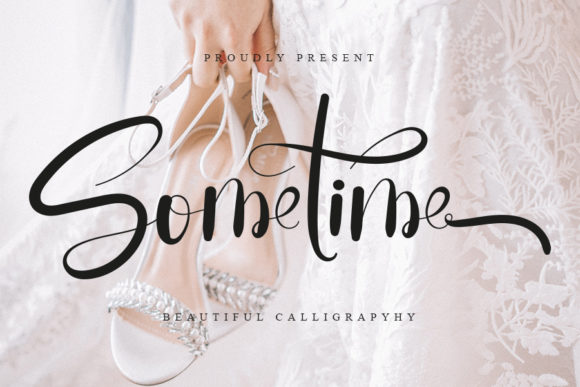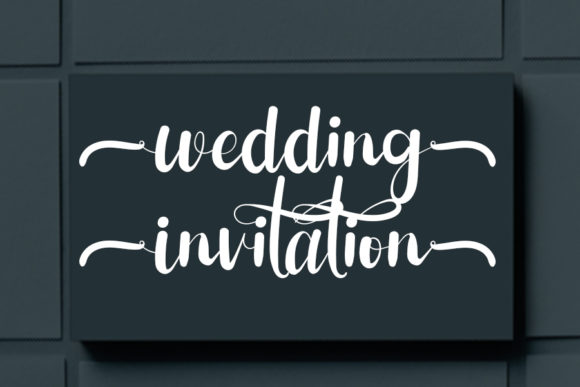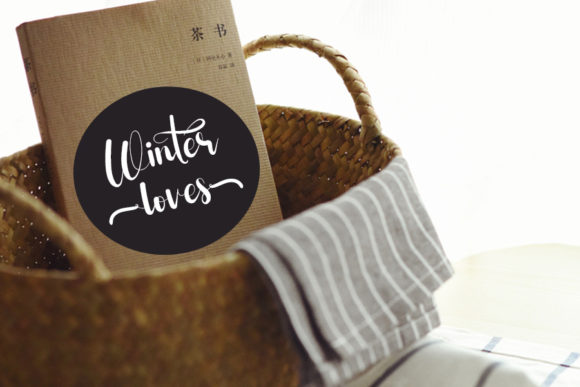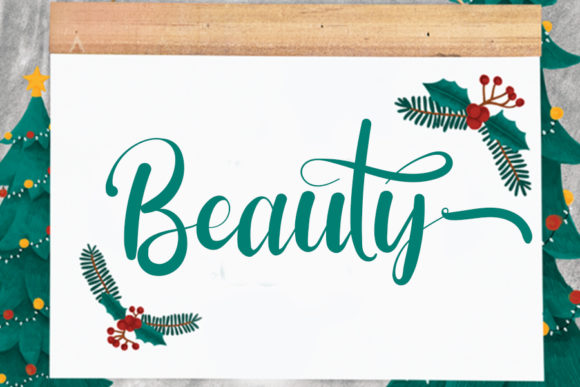
About Sometime Font
Sometime is a fresh, dazzling and beautiful script font. Not too thin and not too thick, balanced and varied, this font was designed to enhance the beauty of your projects.